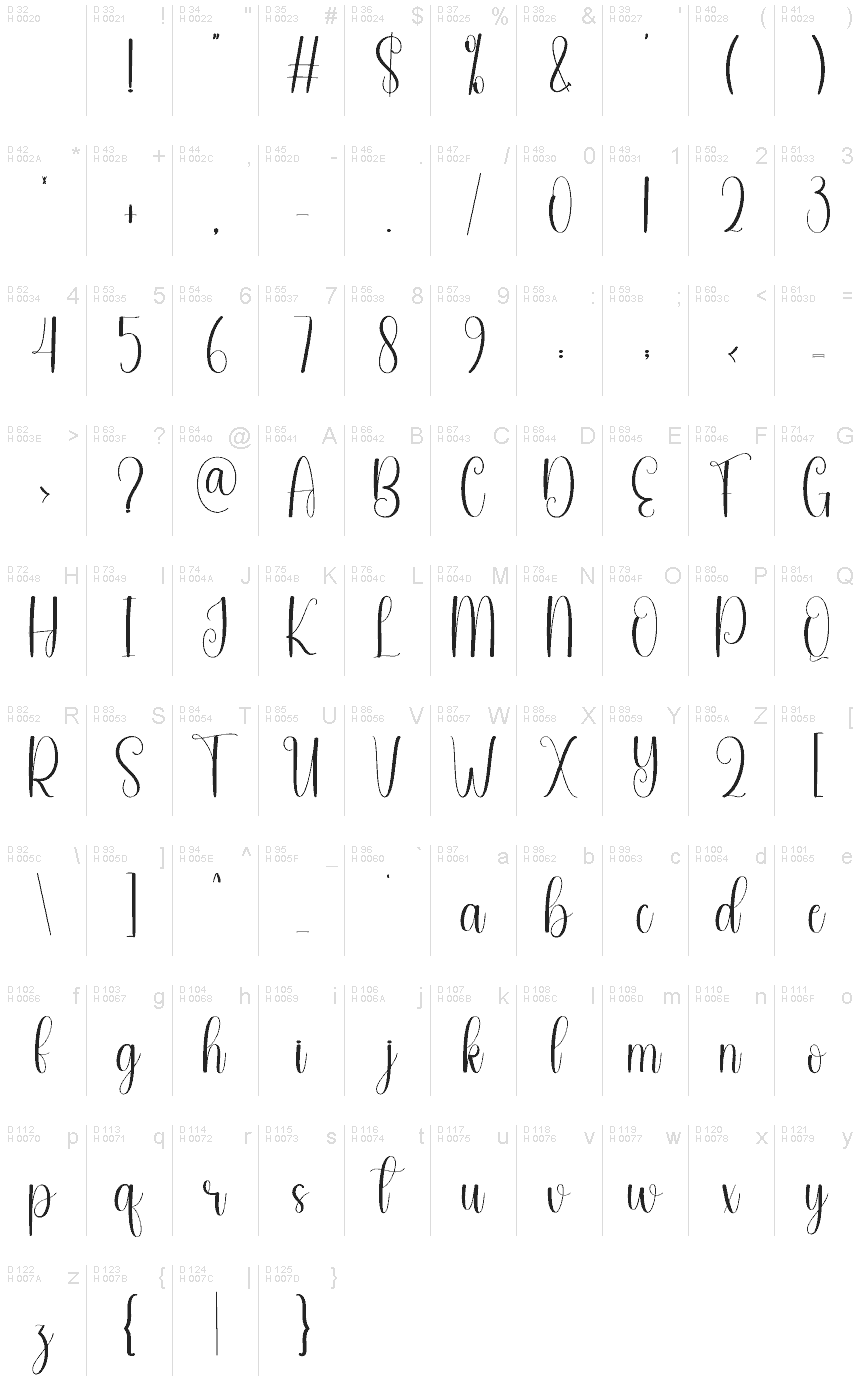
Thinky
Thinky font by Andi Moz is an elegant free calligraphy font that combines style and creativity in its thin and curvy letters. The light condensed font brings movement to whatever textual content it is used in, while not sacrificing readability. Get your writings noticed as you bring a handwritten feel to them without the practical inconvenience of manually writing each letter.
Applications where Thinky would shine include wedding cards, birthday invitations, greeting cards, product packaging designs, labels and bottle stickers for perfumes and cosmetic products. This free resource may also headline books and magazines or just be put together for personal branding projects as signature logos and insignia.